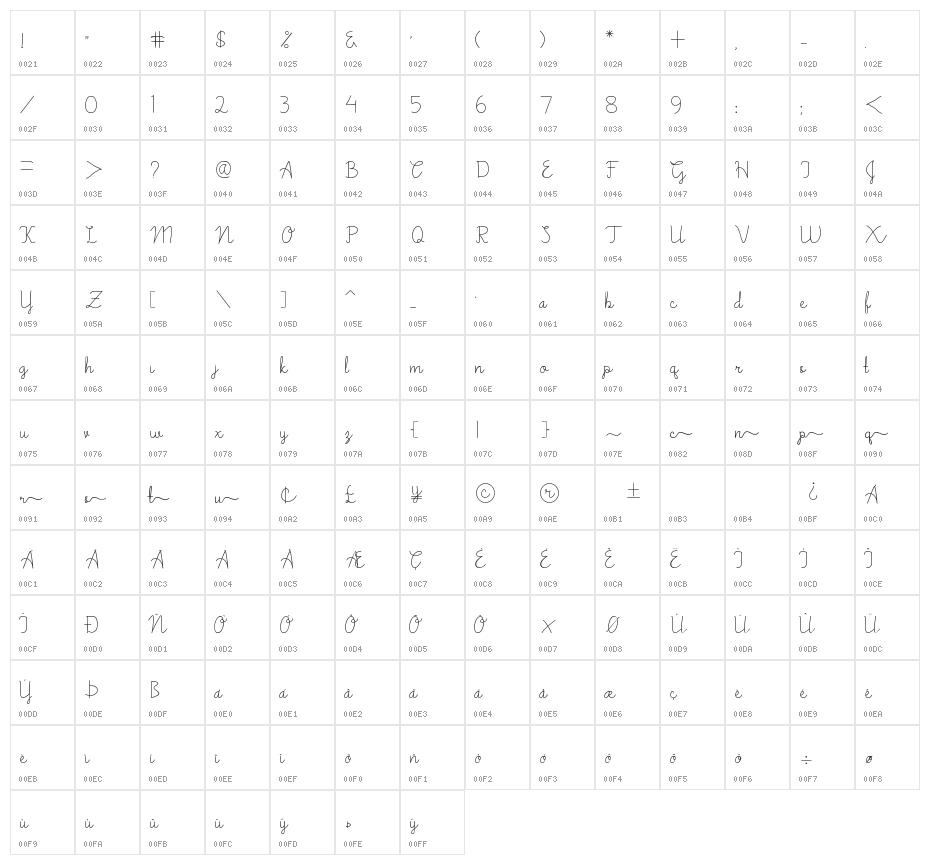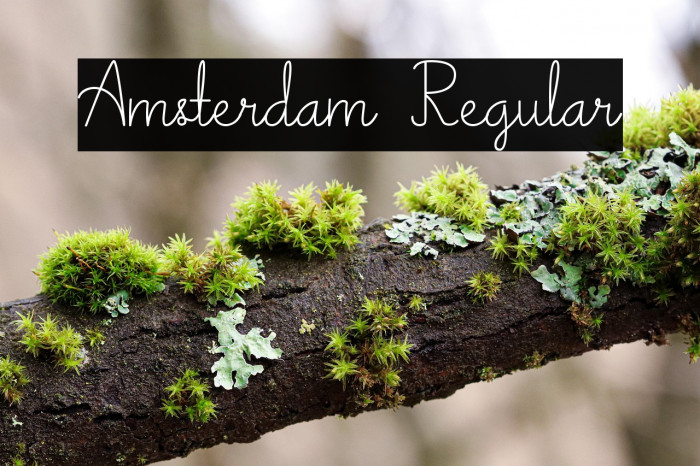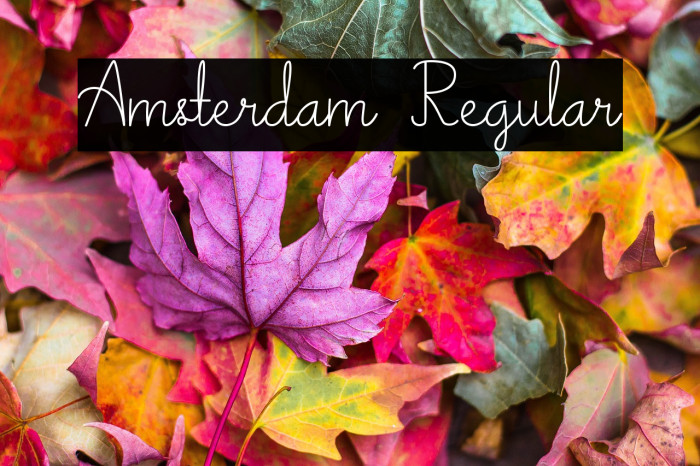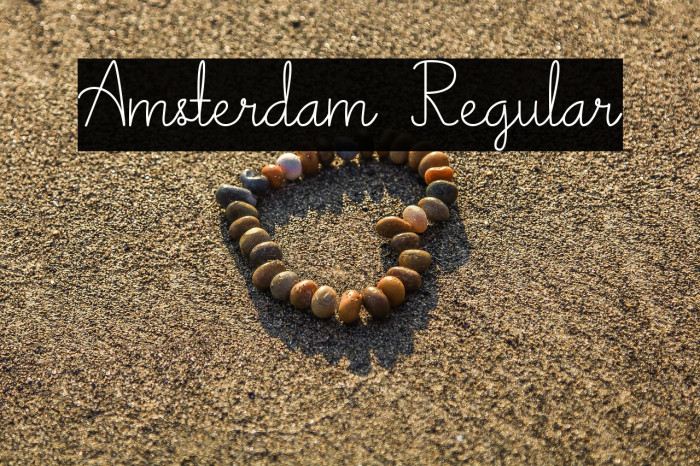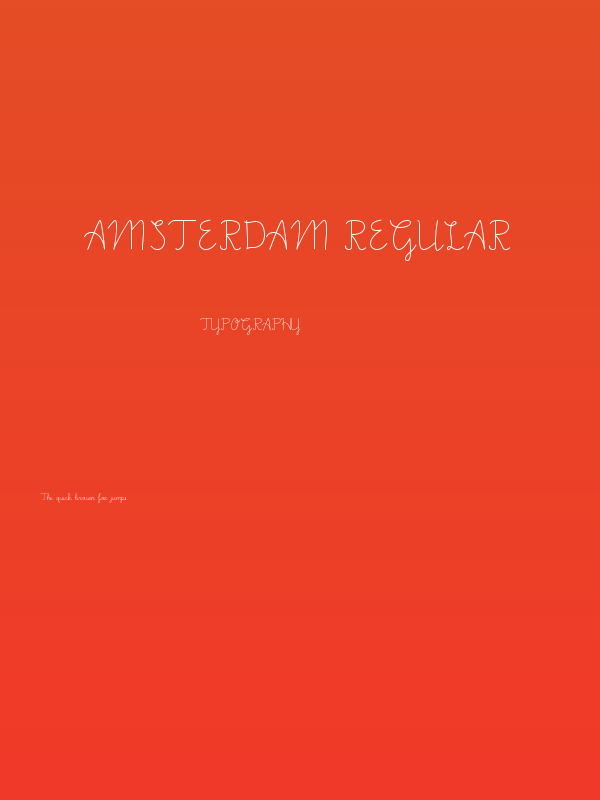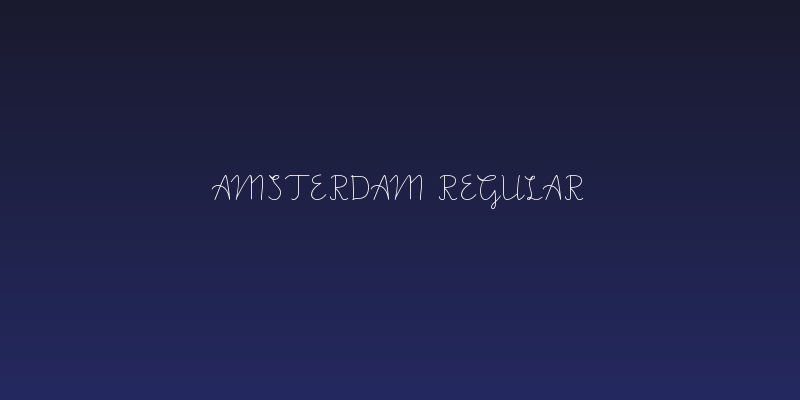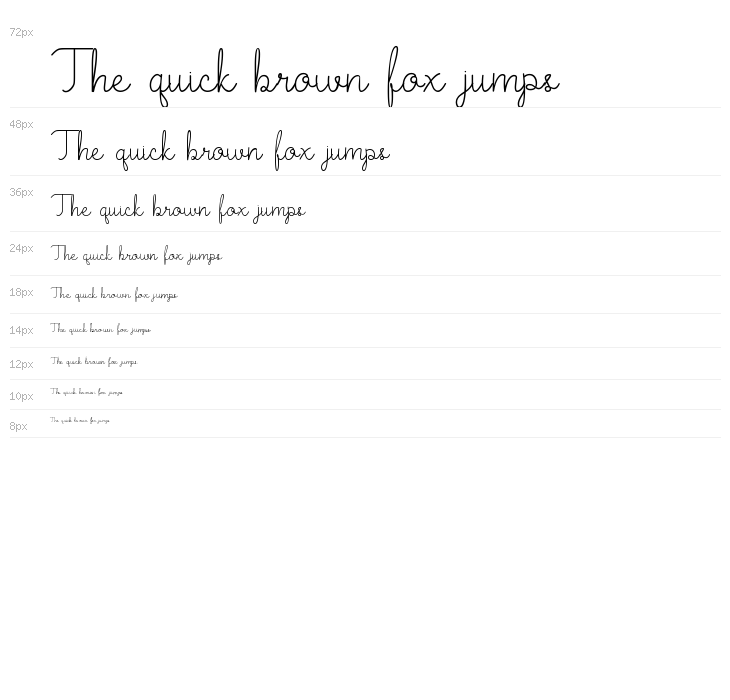
Amsterdam Regular Font
Amsterdam Regular Description
This font features a delicate and flowing script style, characterized by its elegant and smooth curves. The uppercase letters are slightly more structured, maintaining a balance between formality and artistic flair. The lowercase letters are more fluid, with a handwritten feel that adds a personal touch. The numerals are consistent with the overall style, offering a cohesive look. Special characters are designed with the same attention to detail, ensuring they blend seamlessly with the rest of the font. This font's overall appearance is both sophisticated and approachable, making it versatile for various design needs.
Overall StyleElegant and Handwritten
Use CaseLogos, Invitations, Personal Branding
Proposed ProjectsIdeal for wedding invitations, greeting cards, personal branding, and elegant packaging designs.